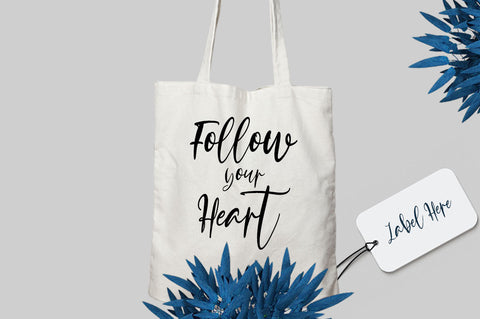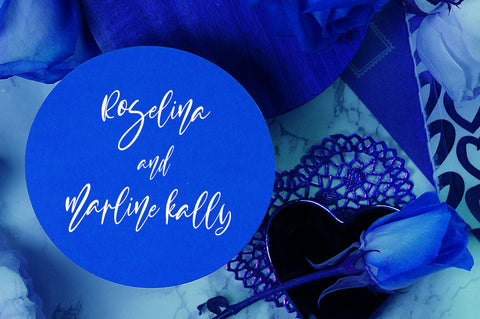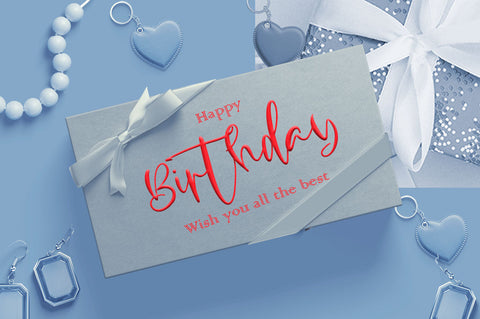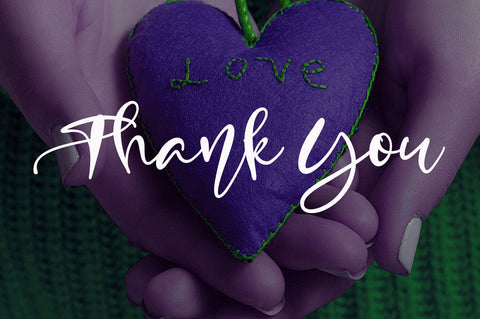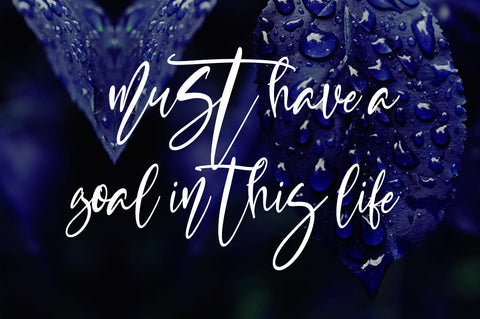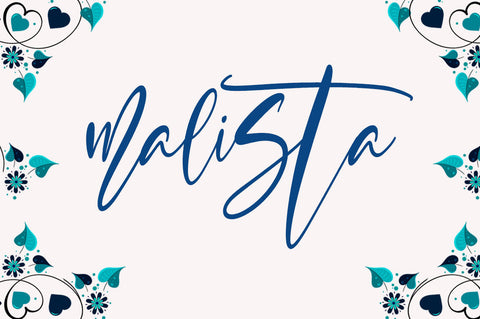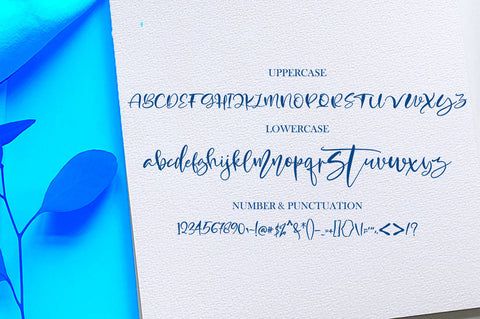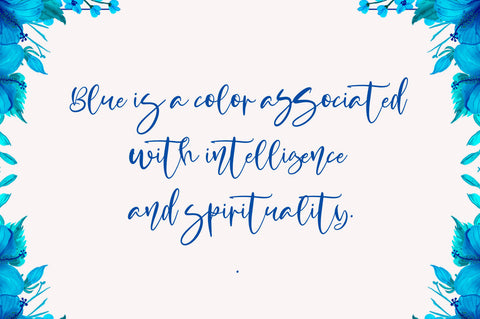
Malista
Malista is a modern script with handwriting, decorative characters and a dancing baseline! It is perfect for use as blog headers, t-shirts, and for weddings, social media, product design, stationery, advertising, apparel, book covers, business cards, greeting cards, branding, merchandising, invitations and handmade quotes and more.
Malista includes OpenType stylistic alternates, ligatures and International support for most Western Languages. To enable the OpenType Stylistic alternates, you need a program that supports OpenType features such as Adobe Illustrator CS, Adobe Indesign & CorelDraw X6-X7, Microsoft Word 2010 or later versions.